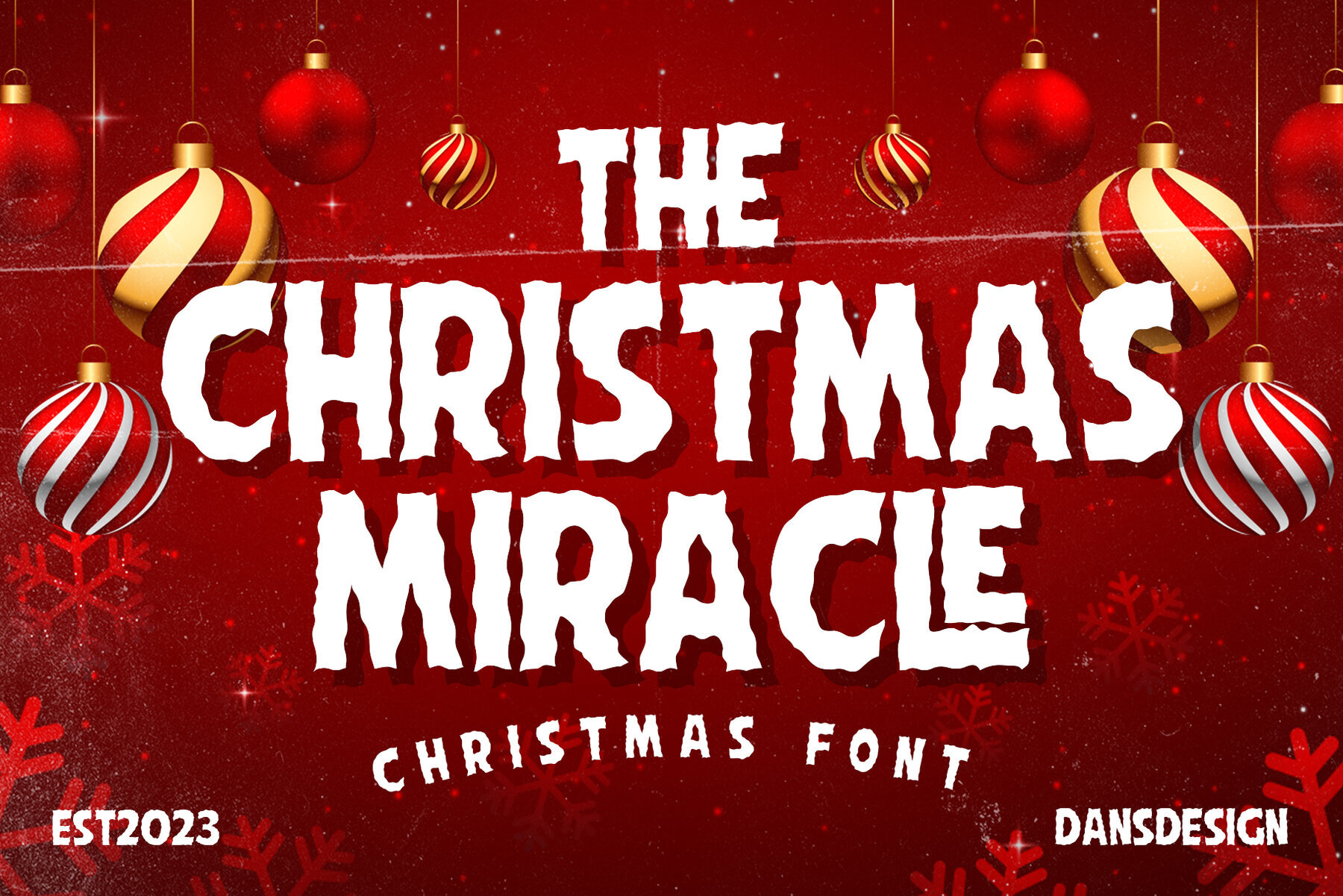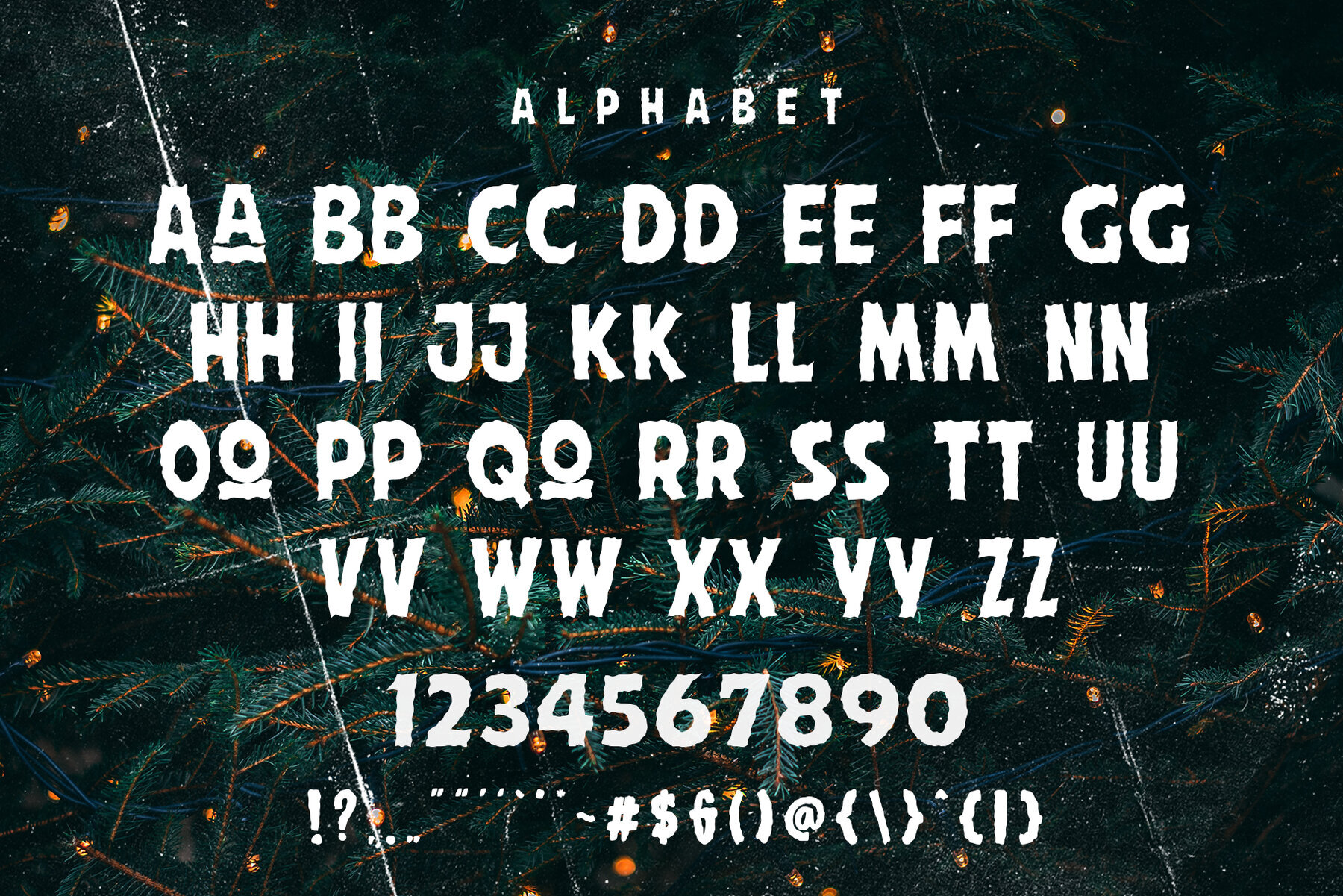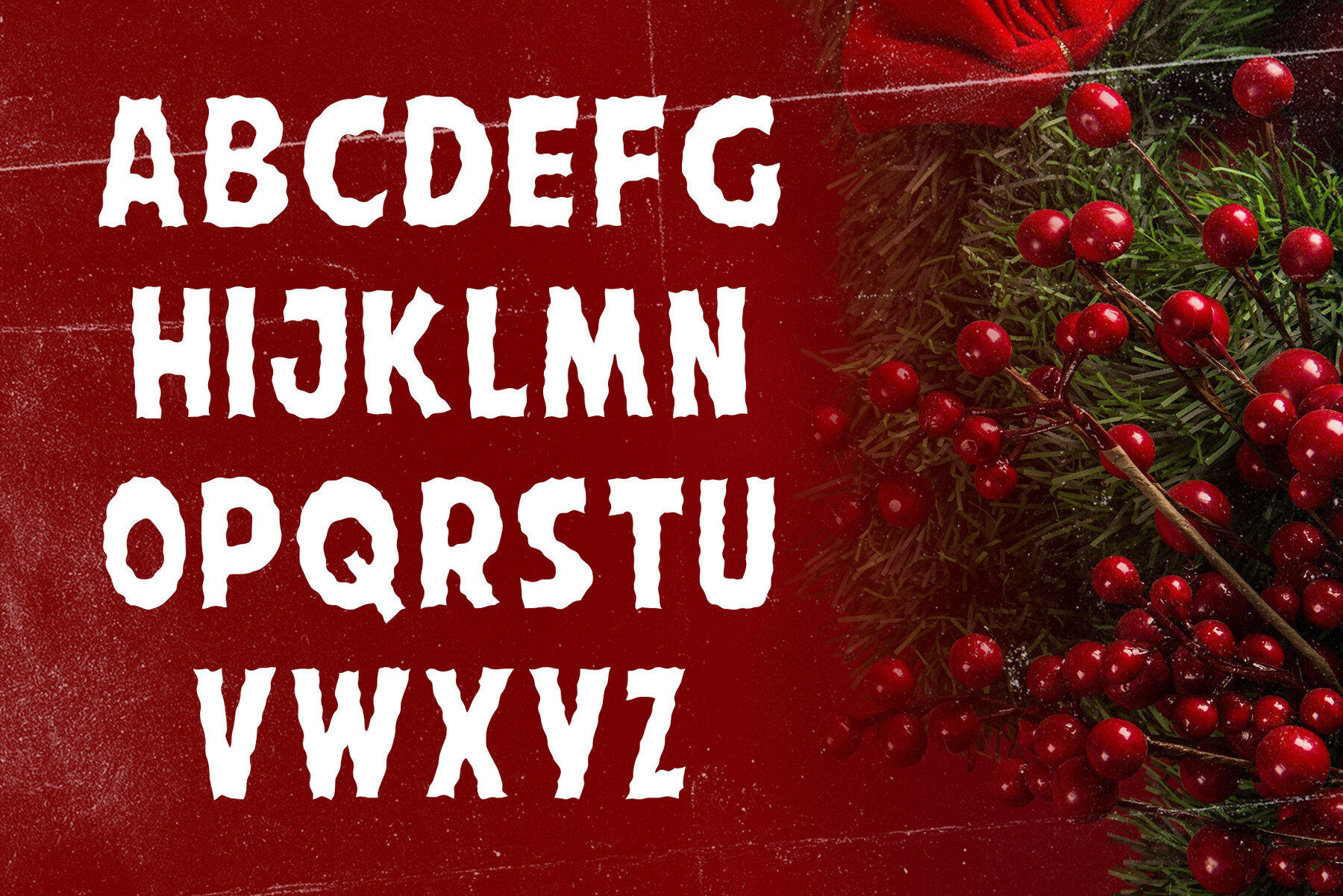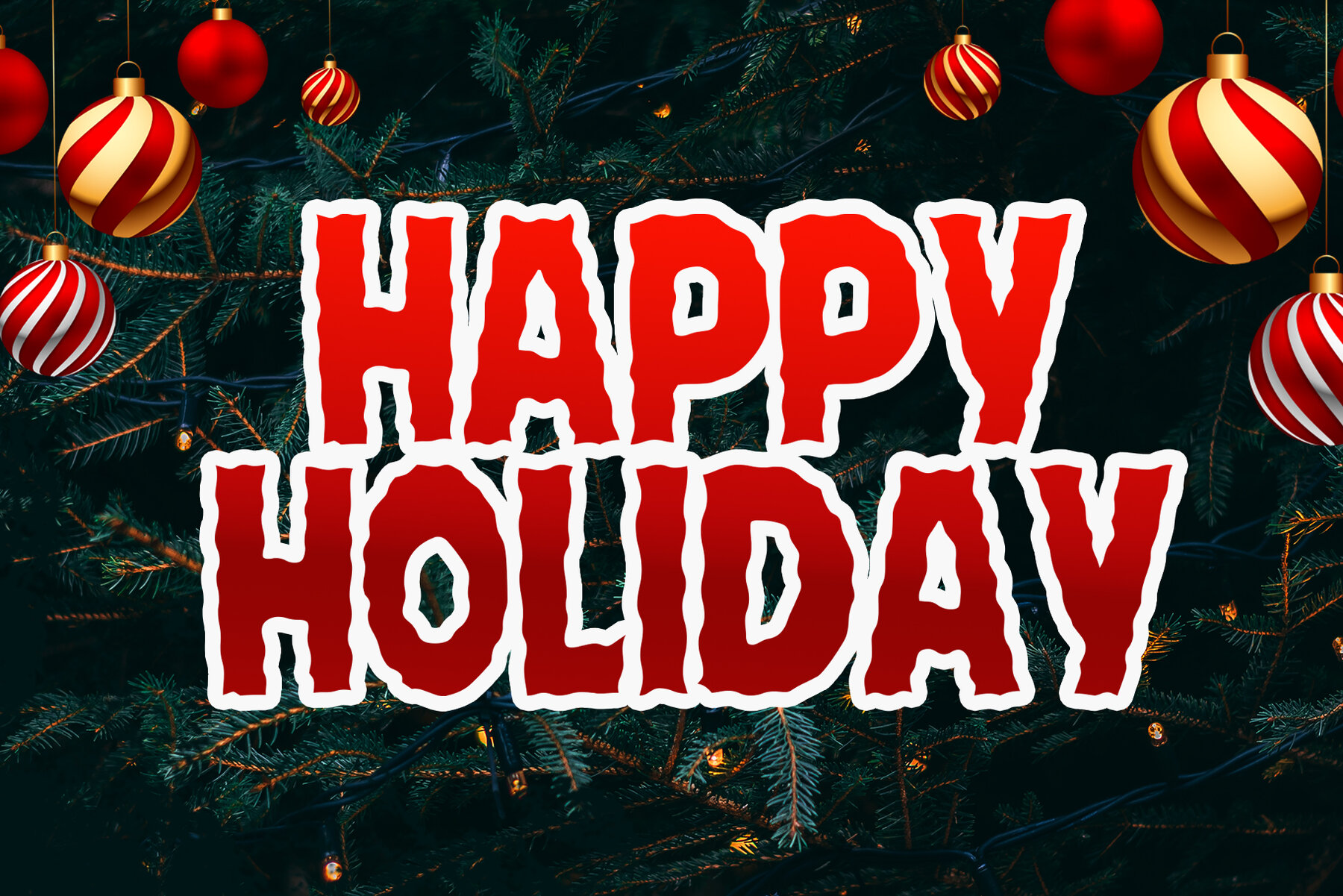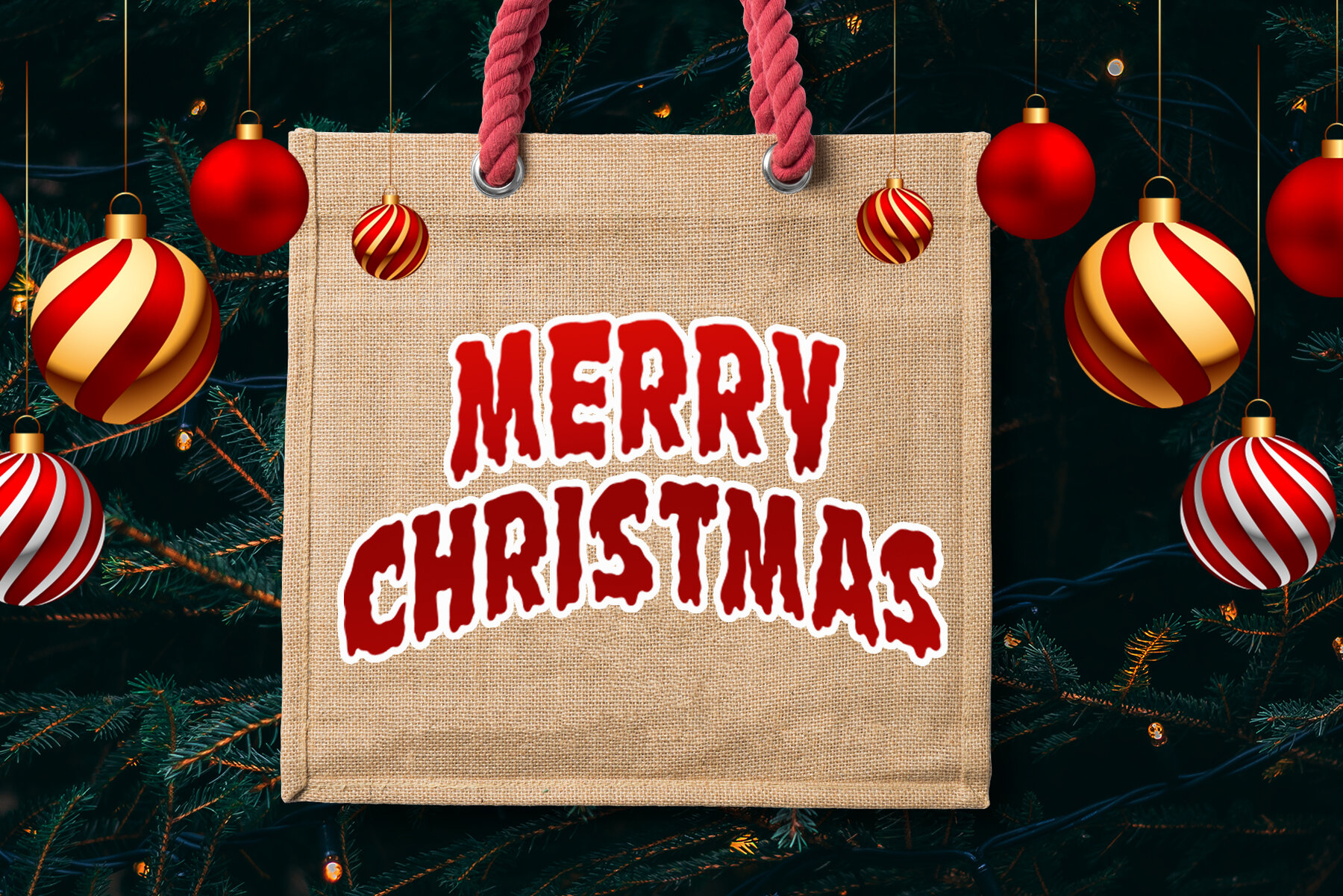
The Christmas Miracle Font
The Christmas Miracle
Welcome the festive spirit with The Christmas Miracle Display Font, a charming comic typeface perfect for infusing joy into your holiday designs. Its playful and friendly style ensures readability across various mediums, making it ideal for Christmas cards, invitations, posters, and more. Elevate your branding with this delightful font, perfect for logos and gift packaging that spread cheerful vibes. The Christmas Miracle Font is your go-to selection for vibrant design projects all year long, offering a warm, inviting touch that captures the essence of the season.The Christmas Miracle Display Font